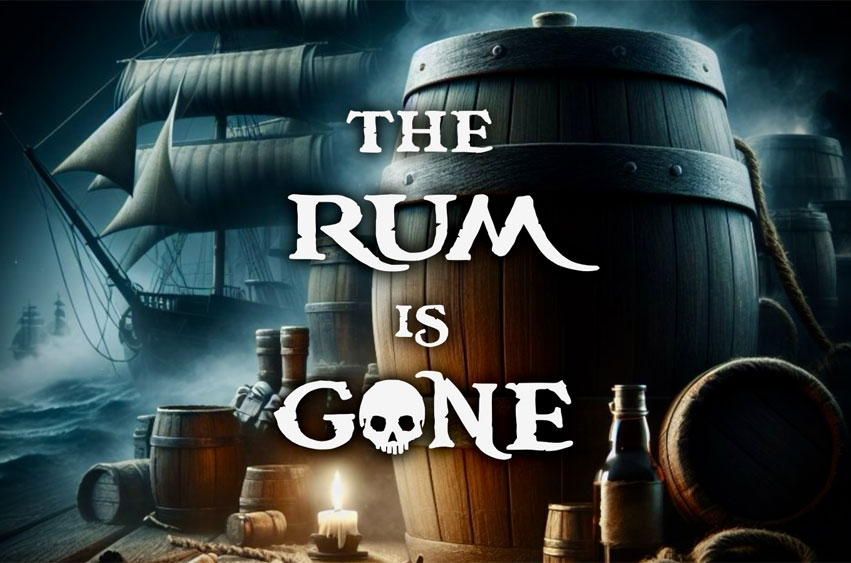
The Rum Is Gone Font
The Rum Is Gone Font is a funny, pirate font that consists of uppercase, lowercase, numbers, special characters and Greek.
Perfectly crafted to meet all your design needs.